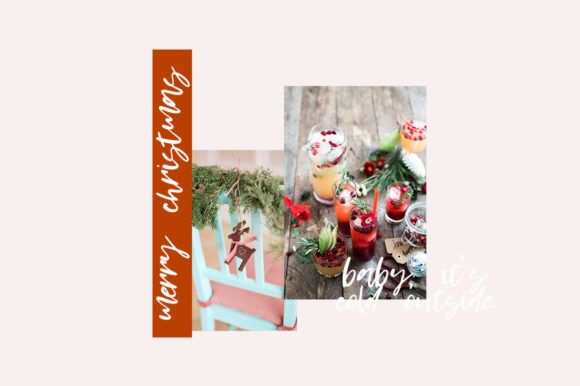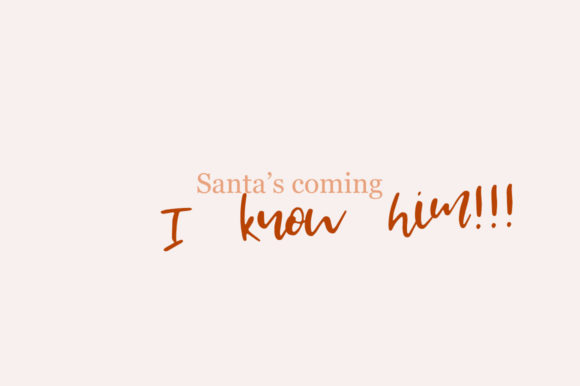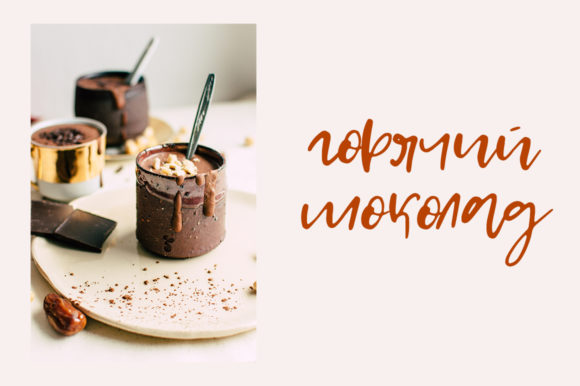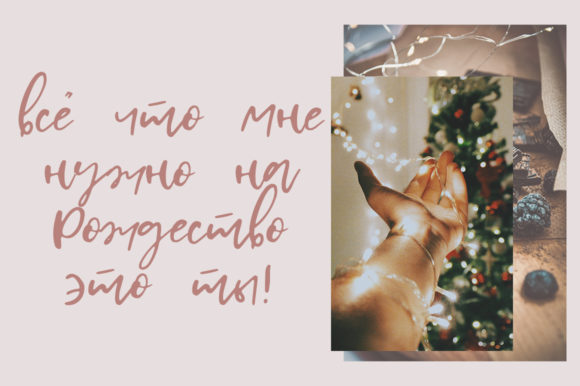
Introduction to Santa Baby Font
Santa Baby is sweet and playful handwritten font.
This versatile script font has a wide range of applications ranging from greeting cards to kids crafts and is guaranteed to add a sweet touch to your next design .